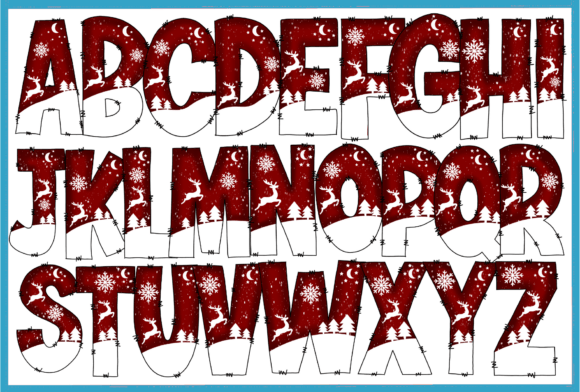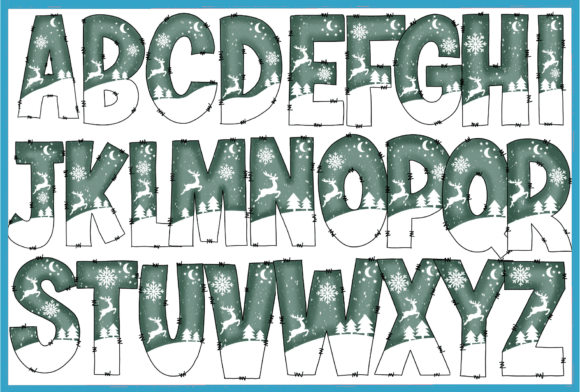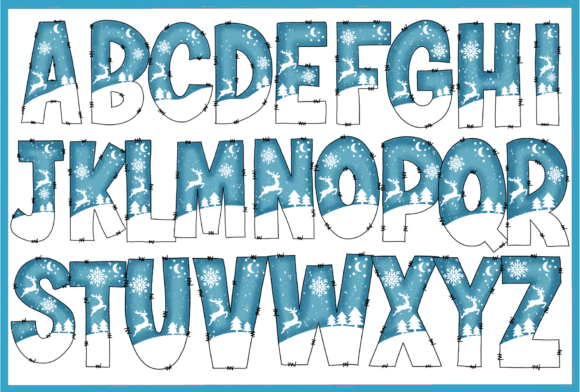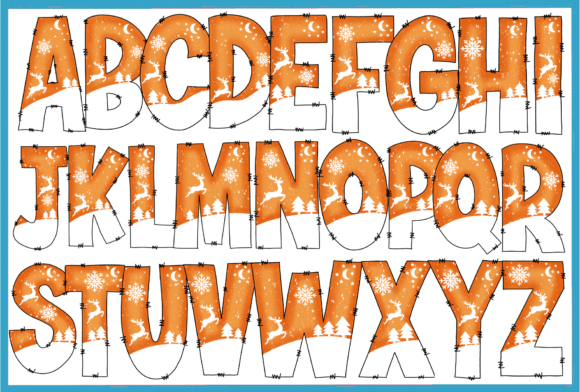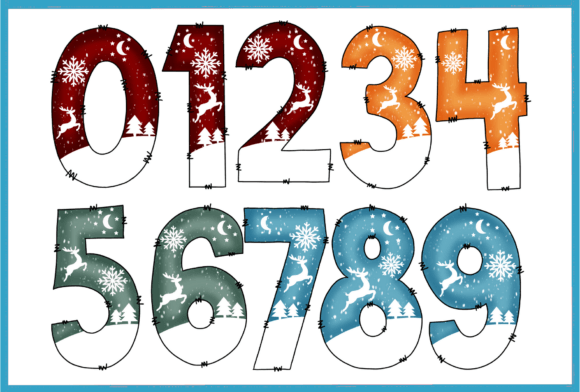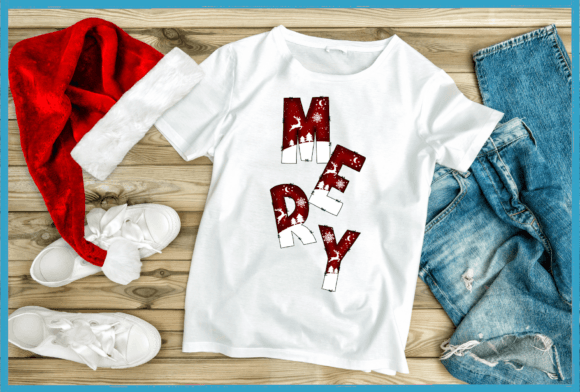
Deck the Halls with a Touch of Whimsy
As the snowflakes gently fall outside, the holiday spirit begins to sparkle within us. For designers, the magic of Christmas is all about capturing that festive feeling in their work. And what better way to do so than with a font that embodies the essence of winter wonderland?
Enter Christmas Snowly Font, a delightful, decorative typeface that brings the coziness of a snow-covered forest to your designs. With its adorable deer shapes and intricate snow patterns, this font is a perfect fit for Christmas cards, festive posters, or any project that needs a dash of holiday cheer. As a designer, you’ll appreciate the versatility of Christmas Snowly Font, which can add a playful touch to your branding, packaging, or even social media graphics.
Key Features of Christmas Snowly Font
- Font Family: Christmas Snowly Font is a unique, custom-designed font that captures the magic of Christmas.
- Character Count: This font features a wide range of characters, including uppercase and lowercase letters, numbers, and special characters, totaling over 250 unique glyphs.
- Unique Characteristics: The font’s distinctive design features intricate snowflake patterns, giving it a festive and whimsical feel, perfect for holiday-themed designs, cards, and invitations.
Designer Review: Christmas Snowly Font
Overall, I think the Christmas Snowly Font is a decent option for those looking for a festive font. It’s got a certain charm to it ✨. The bold, playful letters are reminiscent of traditional Christmas typography.
The font has a good range of weights and styles to choose from, making it suitable for various design applications. The Snowly font family includes:
- Light: Perfect for subtle headings and body text.
- Regular: Great for main content and titles.
- Bold: Ideal for emphasizing important information.
- Italic: Adds a touch of elegance to your designs.
However, I do have some concerns ⚠️. The font’s character set is limited, which might make it difficult to use for more complex designs or international text. Additionally, the font’s aesthetics may not appeal to everyone, and some users might find it too kitschy or over-the-top.
Overall, I’d say the Christmas Snowly Font is a solid choice for those who want a fun, festive font for their holiday designs. It’s not perfect, but it gets the job done with a dash of holiday cheer ✨.
Tips for Getting the Most Out of the Christmas Snowly Font
Use the font in conjunction with other winter-themed elements, such as snowflakes and holly, to create a cohesive design.
Experiment with different font sizes and styles to add visual interest to your design.
Consider using the font in a combination with other fonts to create a unique and eye-catching design.
The Christmas Snowly font is perfect for creating festive holiday designs, such as:
Christmas card invitations
Holiday party invitations
Winter